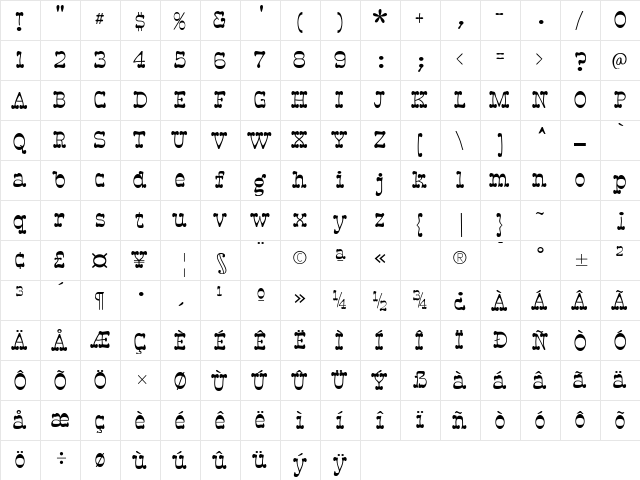
RoundUp Regular Font Preview
RoundUp Regular
RoundUp Regular Font Details
Design Context for RoundUp Typeface
RoundUp softens its letterforms with rounded terminals, giving it an approachable, friendly quality that works well in consumer-facing and digital contexts.
Well-suited to UI design, mobile interfaces, and any brand that wants approachability without sacrificing clarity.
Font Pairing: Pairs well with a rounded or humanist sans for body copy, maintaining the friendly tone without relying on RoundUp to carry extended reading.
Pro Tip: Use RoundUp for UI elements, app interfaces, and anywhere a friendly, approachable tone needs to be maintained without sacrificing clarity.